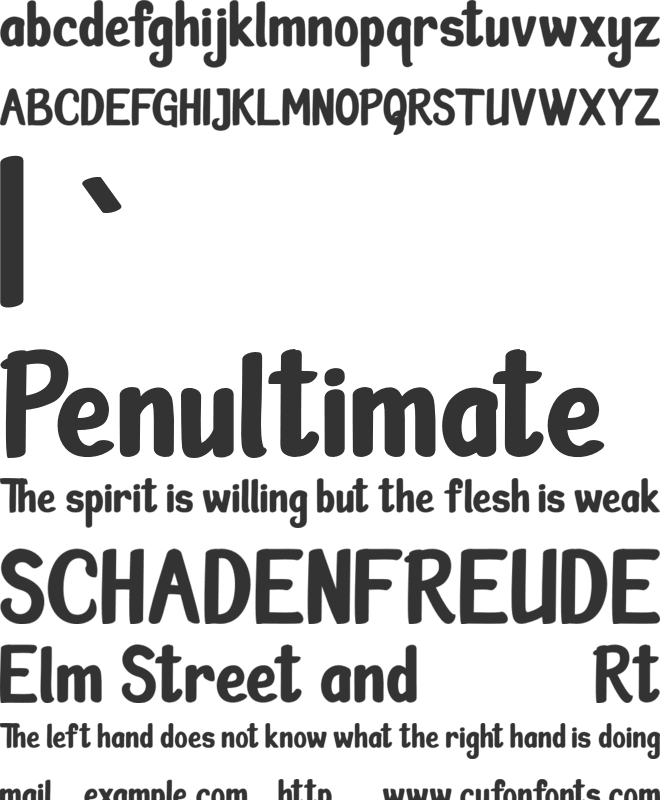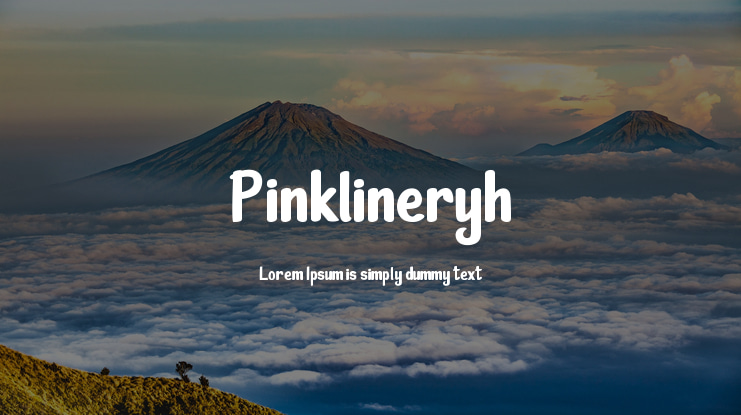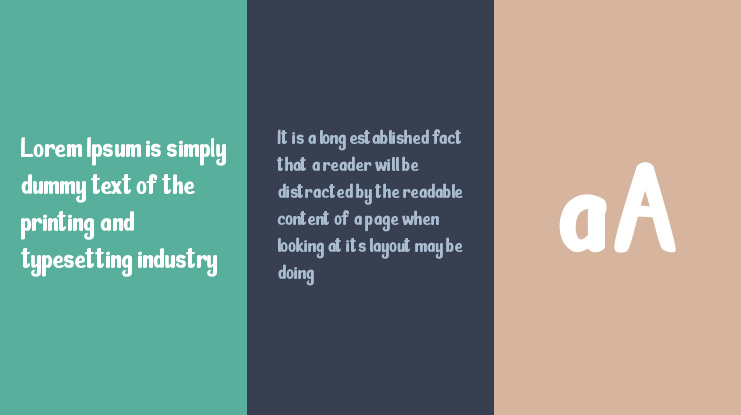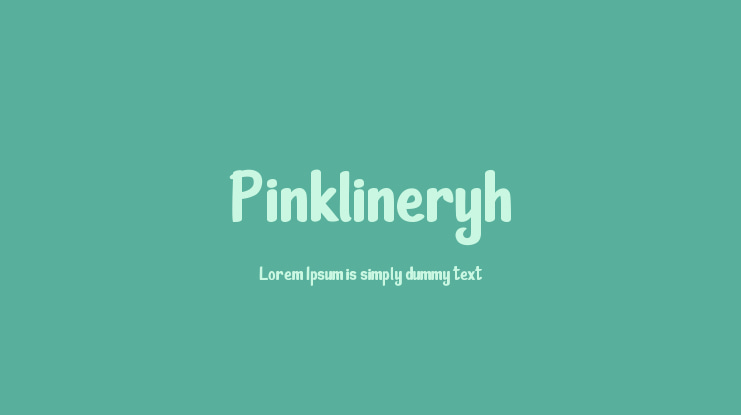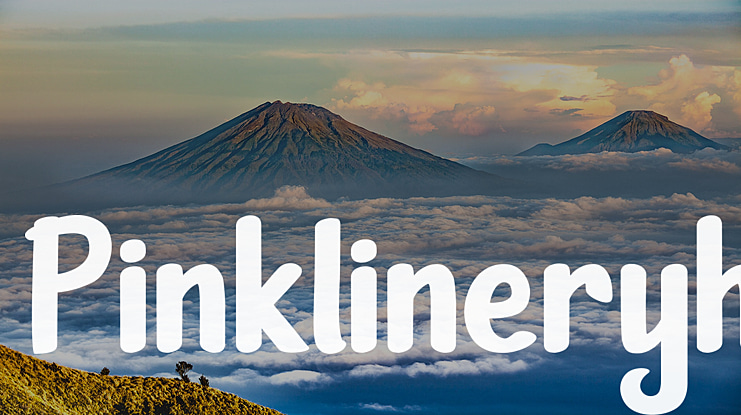
Pinklineryh Font
Pinklineryh Font Introducing This is our newest product called Pinklineryh. The name is taken from the salient nature of this font, which is about the softness and cuteness of each existing letter form, coupled with diverse alternative characters that are able to make pinklineryh become a very unique font. Pinklineryh is really great font for logo, blog/web headline, clothing, invitation, poster, cafe/resto sign, and many others.